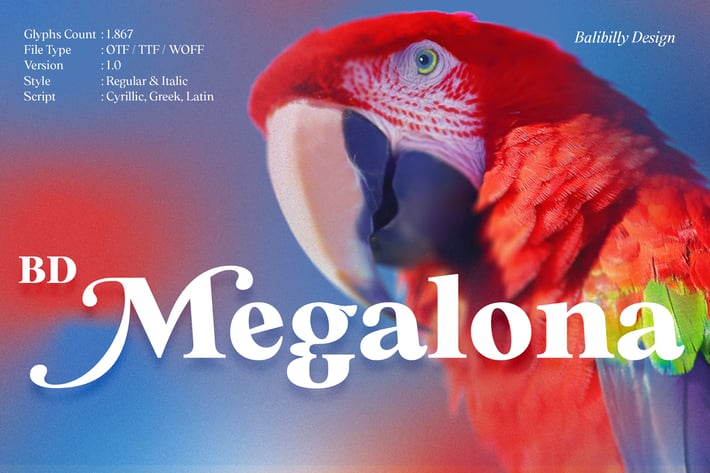
BD Megalona | Elegant Luxury Serif Font Family
The foundation of this typeface lies in our passion for typography over the past year. Inspired by the elegance, consistency, and dedication of Times New Roman, we faced the challenge of a blank canvas and began thinking about how to take our idea even further. As we brought our vision to life, we ensured it stayed true to the rules of letterforms.
This typeface was crafted with care, persistence, and a commitment to excellence. The three words that best describe it are taste, shape refinement, and experimentation. It was created to be both bold and charming, featuring an extended character set of over 1,800 glyphs, covering 219 languages, and supporting Latin, Cyrillic (basic to extended), and Greek alphabets. It includes advanced OpenType features like stylistic alternates, terminal forms, swashes, discretionary ligatures, ordinals, small caps, positional numbers, fractions, and case-sensitive forms.
BD Megalona offers a wide range of options that bring a luxurious feel to symmetrical layouts with selective deviations, making it ideal for stylish typographic projects, making it an excellent pair to Helvetica, Montserrat, Gotham, and many more. It is a complete problem-solving package, perfectly suited for body text and high-impact headlines. The advanced OpenType features shine in logos, branding, magazines, websites, and more.
BD Megalona is our creative expression, designed to meet the demands of modern design while drawing inspiration from the timeless traditions of the past.
CHARACTER DETAILS
Basic Latin alphabet A-Z and a-z
Stylistic alternate
Ordinals
Ligatures
Case sensitive form
Swash
Small caps